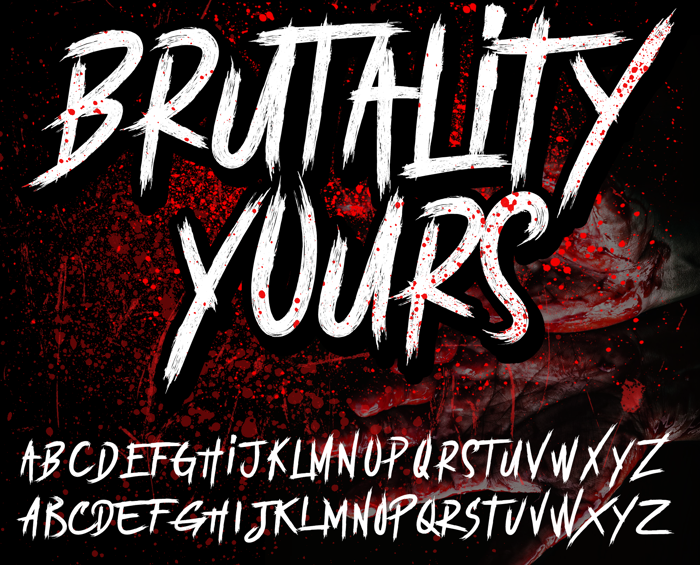
BRUTALITY YOURS DEMO Font
BRUTALITY YOURS
- Extreme band inspired font perfect on your posters, band covers, etc.
- Lifestyle horror theme font for branding, website, mobile app etc.